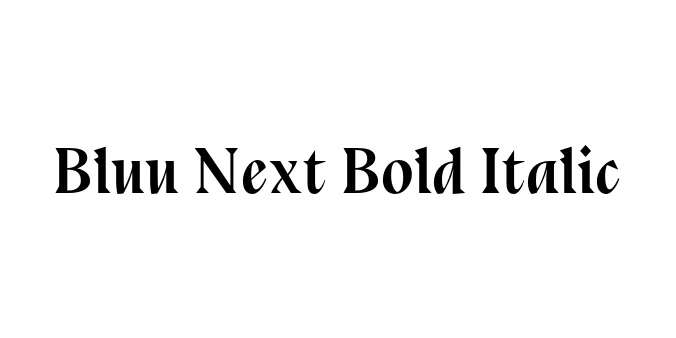
Bluu Next Bold Italic
Designed by Jean-Baptiste Morizot
Bluu Next is a sharp, wedge-serif typeface designed by Jean-Baptiste Morizot and released through the Velvetyne Type Foundry. It was originally conceived as a sharper and more aggressive alternative to classic serif fonts, specifically intended for display purposes where a strong, contemporary edge is required. The design features high contrast and unconventional proportions that give it a unique, almost brutalist character.
The Bold Italic variant emphasizes its distinctive sharp terminals and dynamic slants, making it particularly effective for editorial headlines and large-scale print. As an open-source font released under the SIL Open Font License, it has become a staple for designers looking for a sophisticated yet edgy serif that stands out in both digital and physical media environments.
Bluu Next Bold Italic Best Uses
Perfect for high-impact headlines in magazines and digital publications.
Ideal for logos and visual identities that require a sharp, aggressive, and modern aesthetic.
Works exceptionally well for large-scale typography where detail and character are paramount.
Excellent for large display text on modern, minimalist websites.